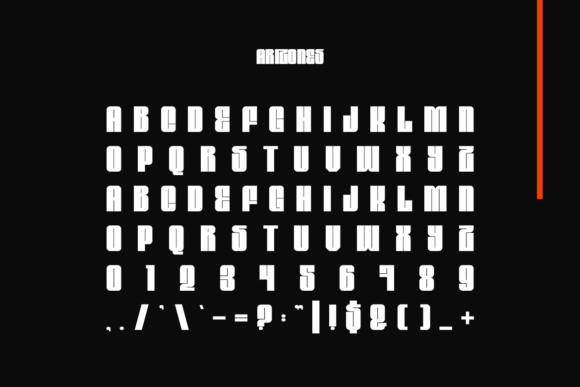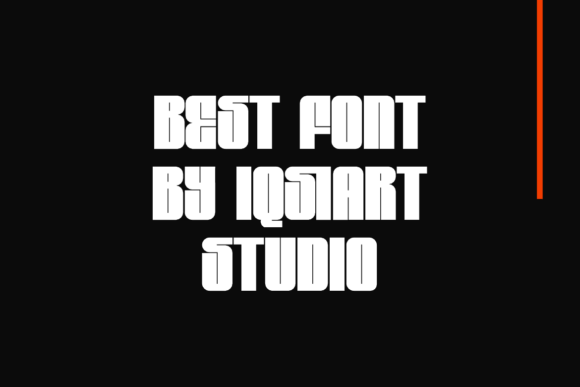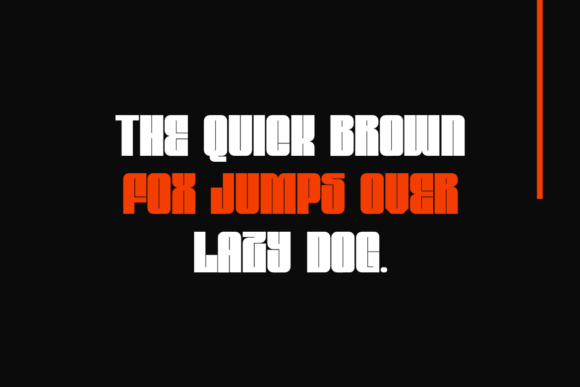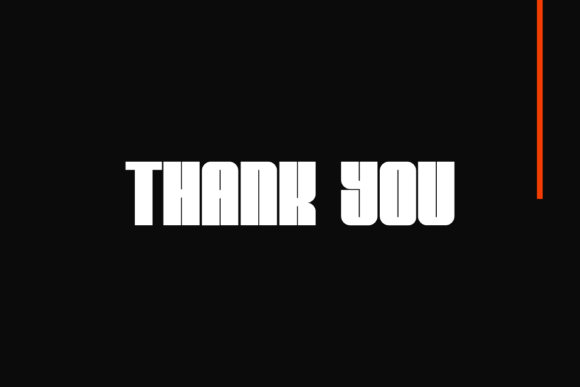
Discover Your Next Creative Partner: Arizones Font
Have you ever stared at a blank canvas, feeling the urge to create something extraordinary, but struggling to find the right words to bring your vision to life? We’ve all been there – a blank page can be daunting, but with the right tools, the possibilities become endless. This is where the Arizones Font comes in – a masterfully designed sans serif font that has the potential to elevate your creative ideas to new heights.
Arizones Font is more than just a typeface; it’s a partner that helps you express your unique voice and style. Its clean lines and modern aesthetic make it perfect for a wide range of projects, from branding and advertising to digital design and publishing. Whether you’re a seasoned designer or just starting out, Arizones Font is a valuable addition to your toolkit, allowing you to bring your creative vision to life with precision and flair.
Key Features of Arizona Font
- Font Family: Arizona Font is a sans-serif font family with a modern and clean design.
- Unique Characteristics: The Arizona Font features a unique blend of modern and classic design elements, with a distinctive x-height and a wide range of weights and styles.
Arizones Font Review
Overall, I found Arizones Font to be a decent addition to any designer’s toolkit, but it has its strengths and weaknesses.
- Unique and modern design: Arizones Font offers a fresh take on sans-serif fonts, making it perfect for modern designs and branding.
- High legibility: The font is highly legible, making it easy to read even in smaller font sizes.
- Wide character set: Arizones Font has a wide range of characters, including symbols and glyphs, making it suitable for multilingual designs.
- Limited font weight options: The font only comes in a few weights, which may limit its versatility in certain designs.
- No italic or bold italic options: This may be a drawback for designers who rely heavily on italic or bold italic text.
- Not suitable for body text: While Arizones Font is great for headlines and titles, it may not be the best choice for body text due to its limited line spacing.
While Arizones Font has its limitations, it’s still a solid choice for designers looking for a modern and unique font. Its high legibility and wide character set make it a great addition to any toolkit, and its unique design will surely stand out in modern designs and branding.
Getting the Most Out of Arizones Font
To get the most out of Arizones Font, use it for:
- Creating eye-catching headlines and titles.
- Designing modern and sleek graphics.
- Adding a touch of elegance to your text-based designs.